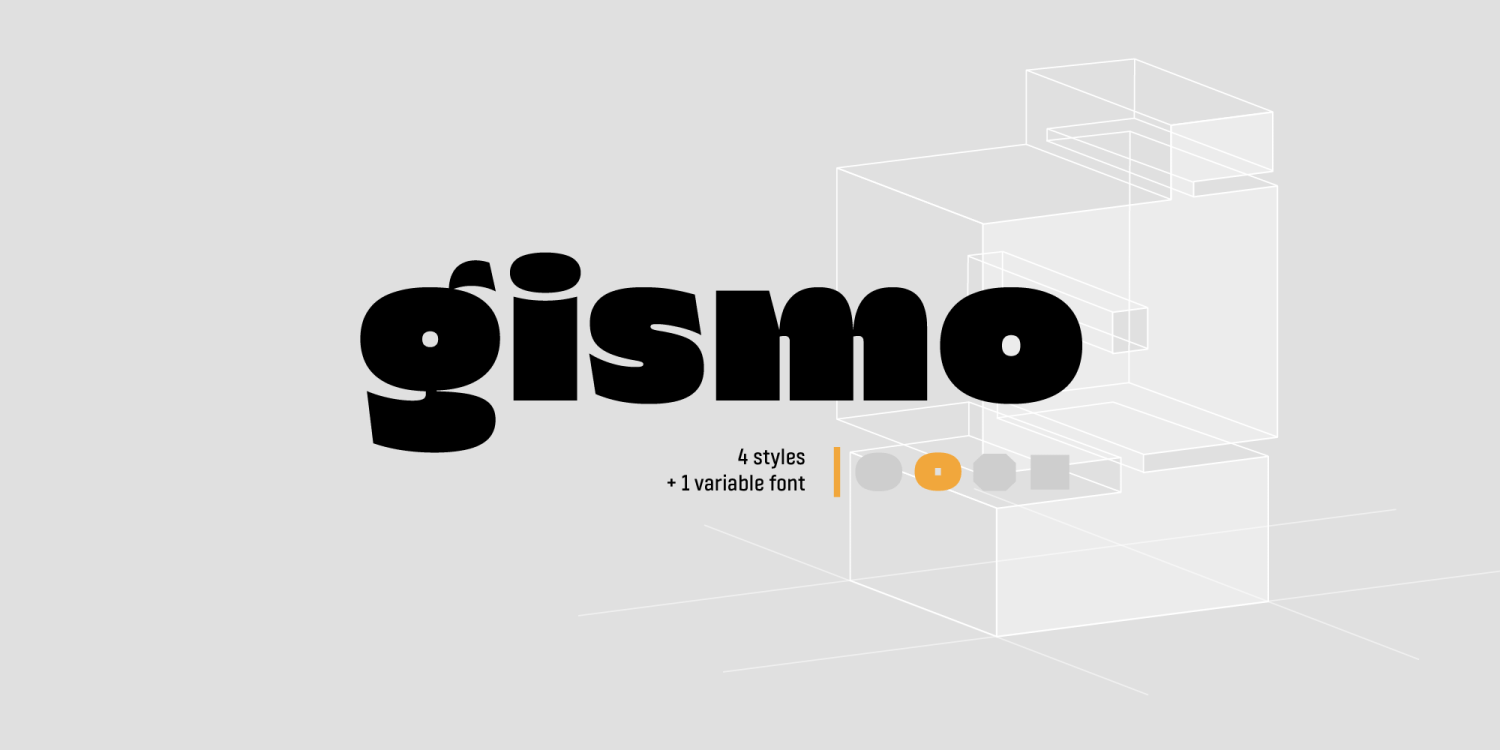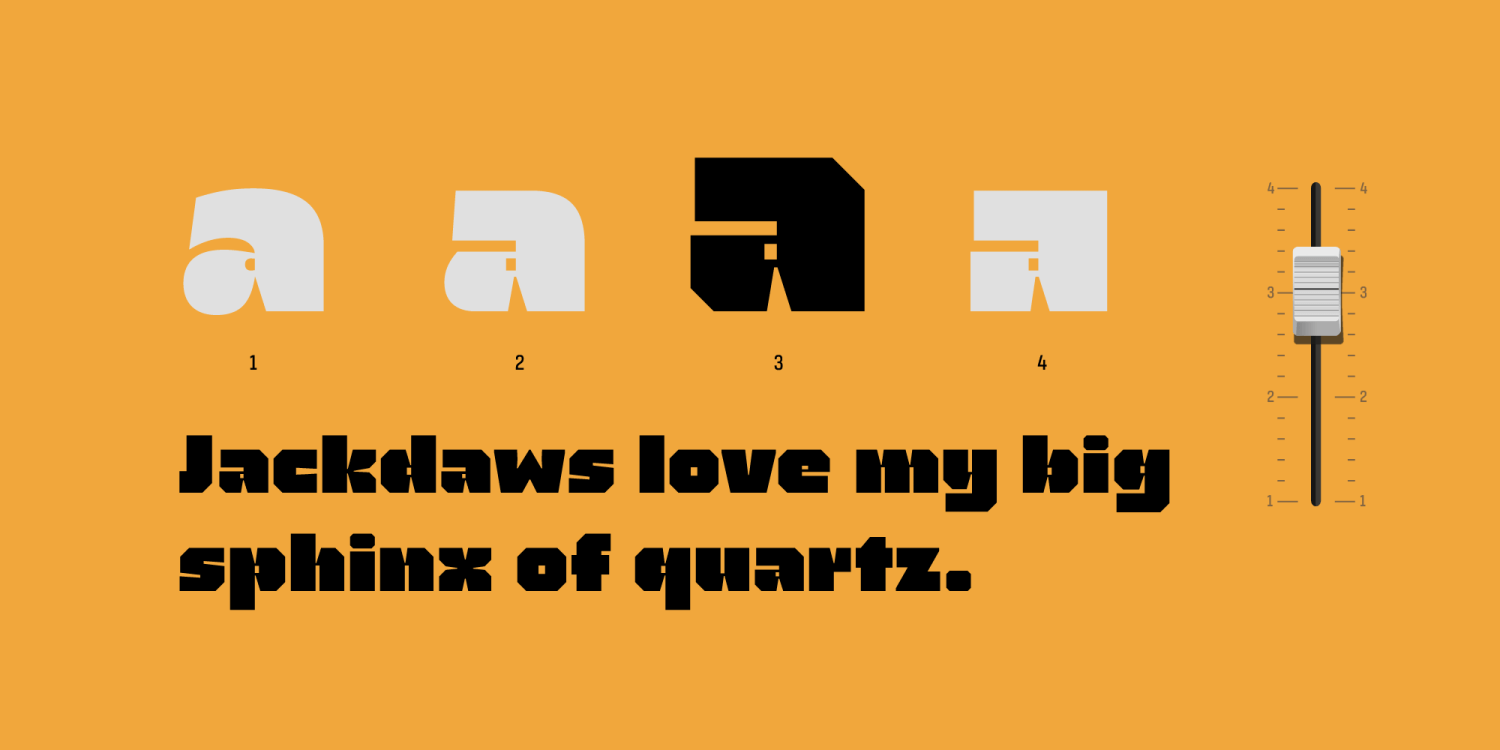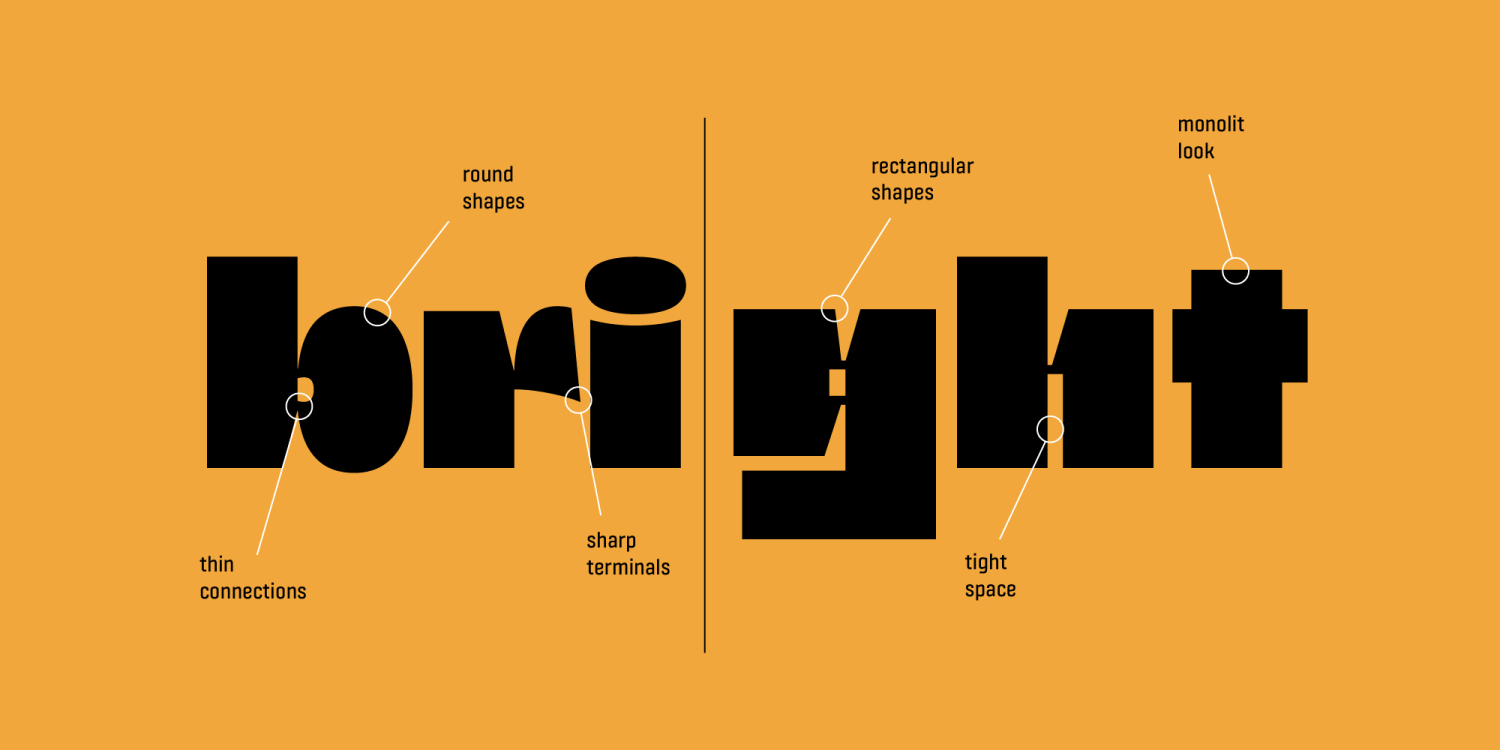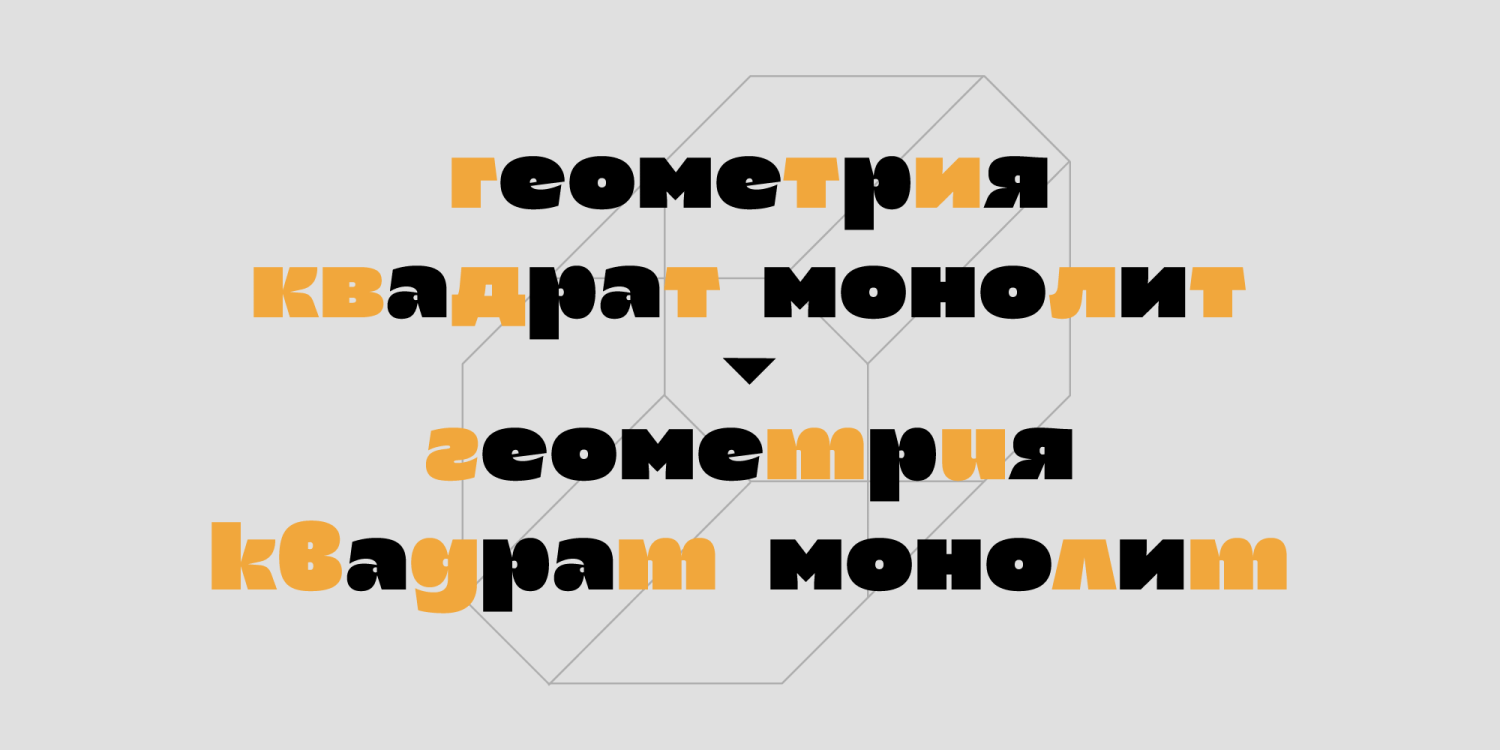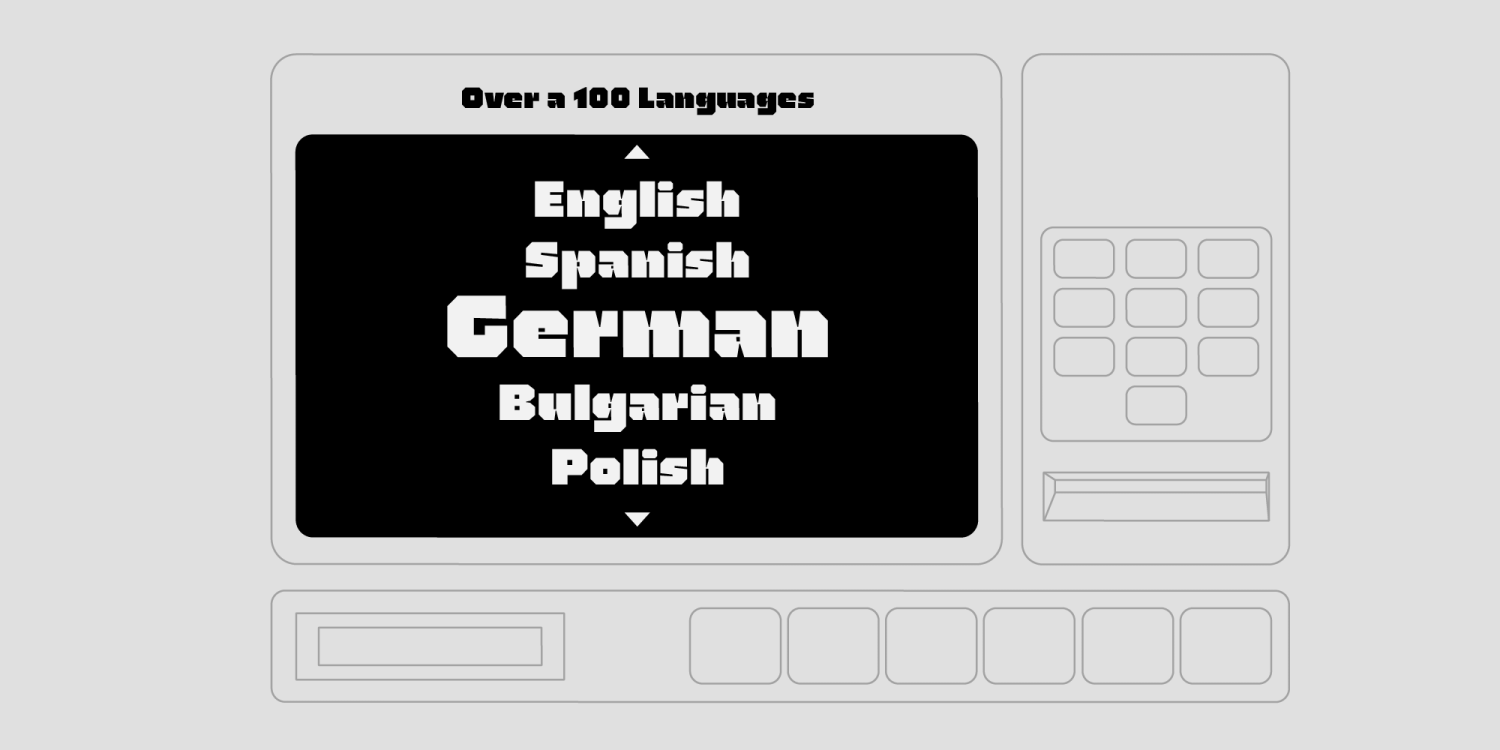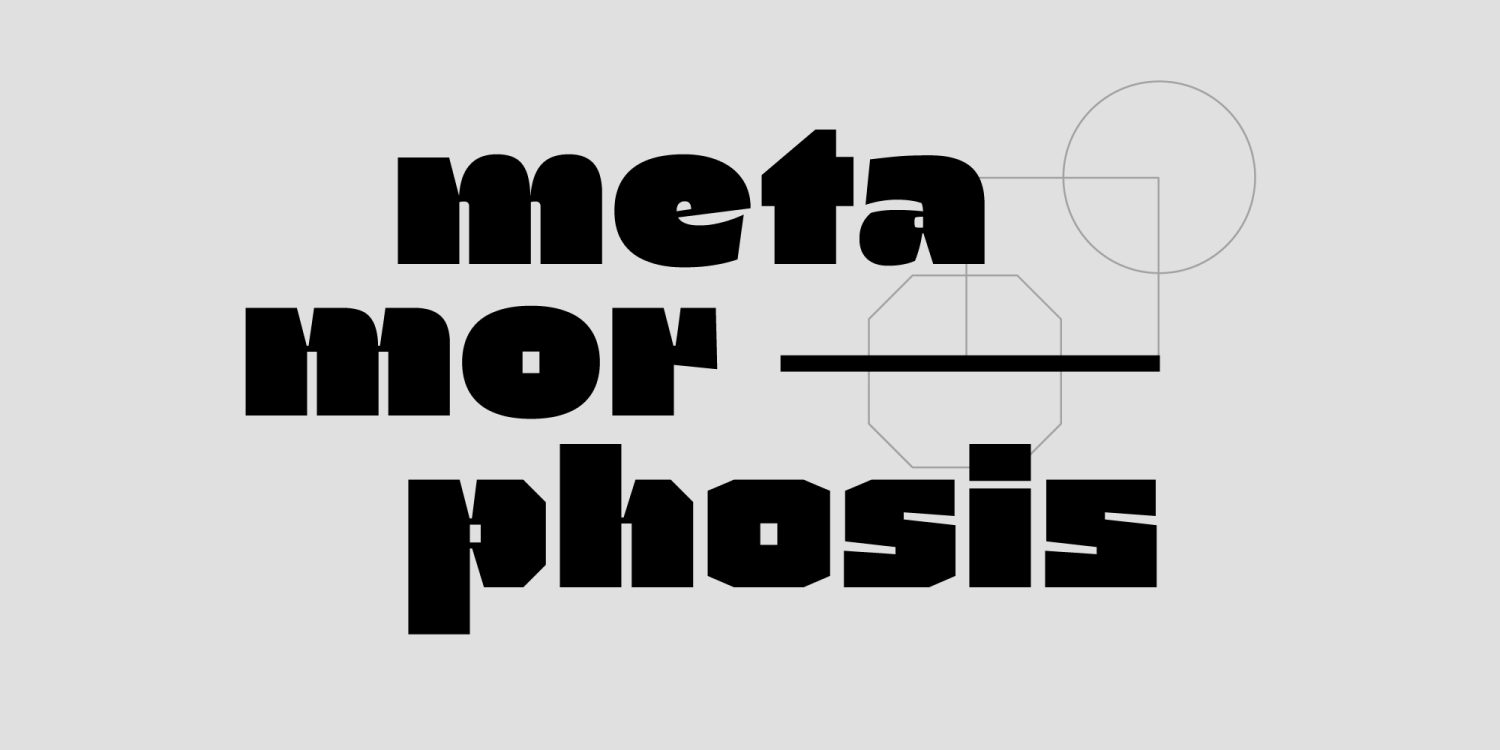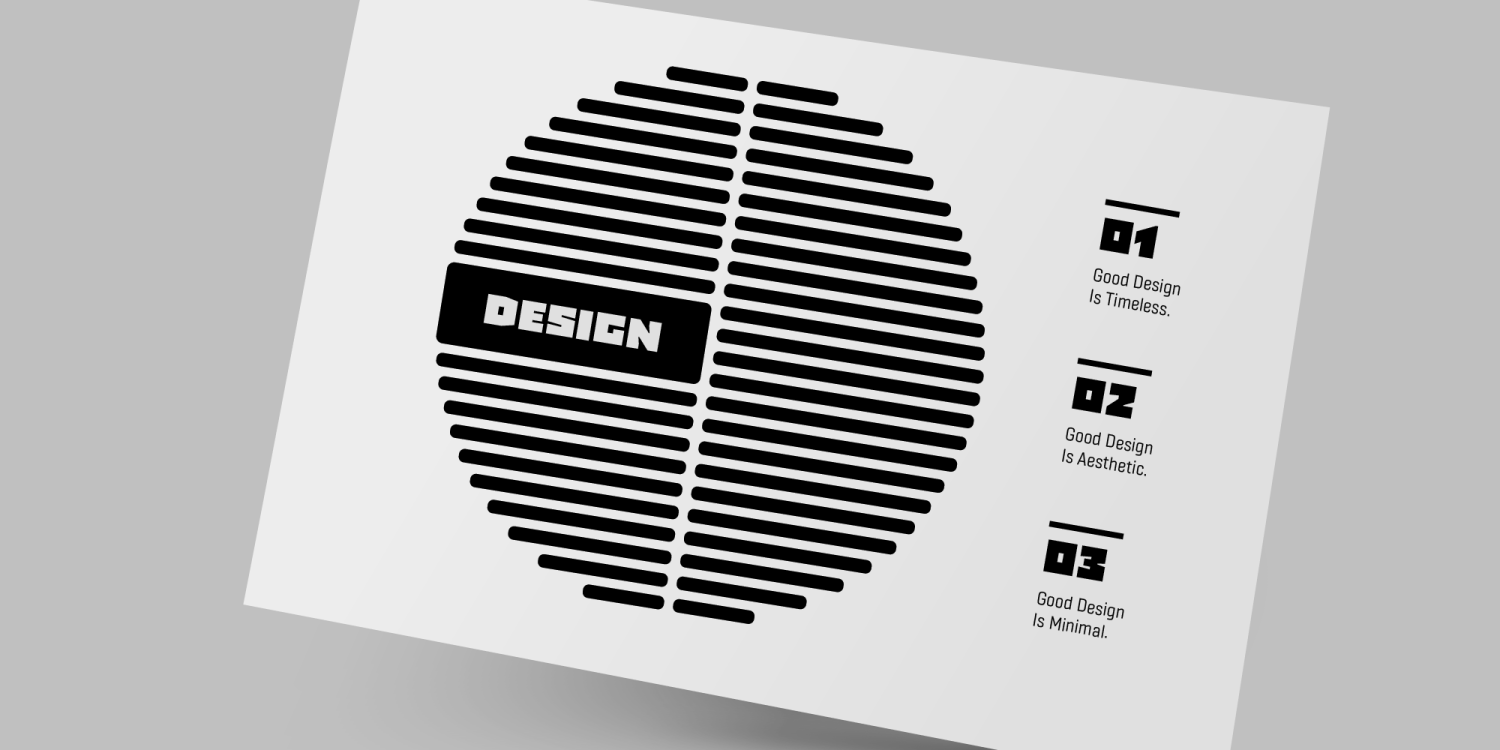
Gismo
Gismo was released by Fontfabric in collaboration with Ani Dimitrova. This innovative family explores the full spectrum of geometric form, offering four nuanced styles—Round, Semi‑rectangular, and Rectangular. Each style is crafted to help branding and editorial designs express everything from approachable warmth to technical precision, making Gismo an exciting toolkit for creative professionals.
Why Choose Gismo?
Gismo is a Display typeface designed for headlines, branding, posters, signage, packaging, and editorial layouts. Its four cohesive geometric styles—ranging from soft and friendly to sharp and technical—make it an excellent choice for designers and creatives seeking flexible, character-driven display type.
With a total of 4 styles (plus a variable font), advanced OpenType features, and robust multilingual support, Gismo ensures versatility and high-quality typography for every project. Whether you’re creating magazine covers, logo designs, poster campaigns, product packaging, or web banners, Gismo delivers a unique blend of expressive style and functional clarity. Download Gismo today!